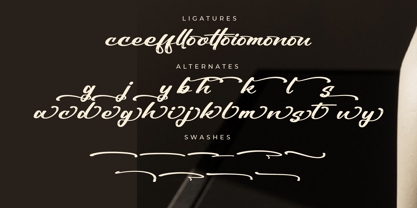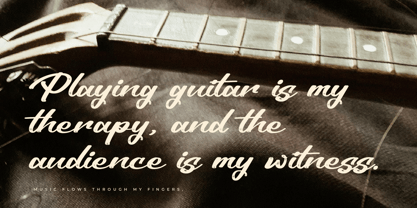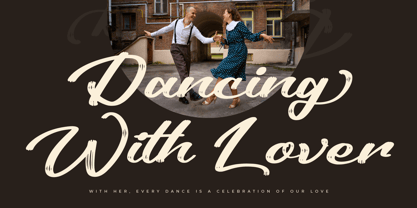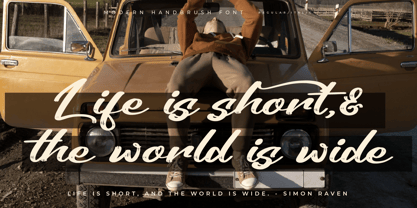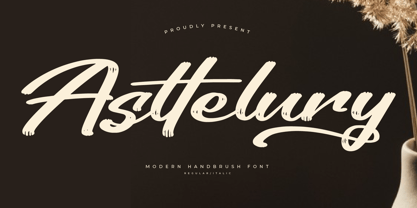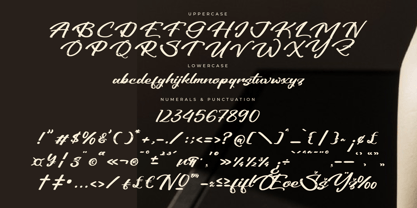
Asttelury
The Asttelury Font Family was designed by Heru Utama Putra and published by Letterena Studios. Asttelury contains 2 styles and family package options.
Asttelury – Modern Handbrush Font , from Letterena, is a Luxury Script font, suitable for any projects such as: logos, branding projects, homeware designs, product packaging, mugs, quotes, posters, shopping bags, t-shirts, book covers, name card, invitation cards, greeting cards, label, photography, watermark, special events, and all your other luxury and beautiful projects that need a Luxury serif taste.